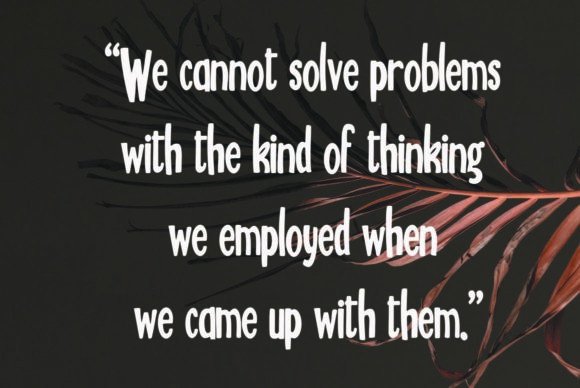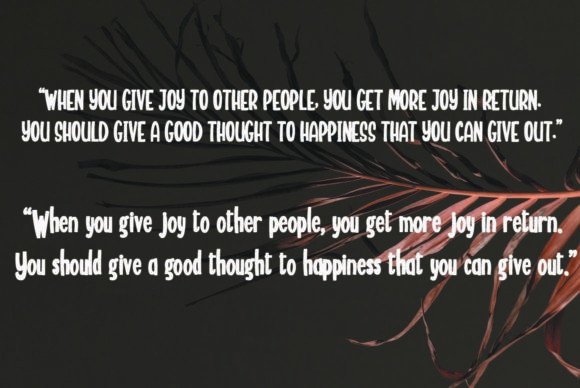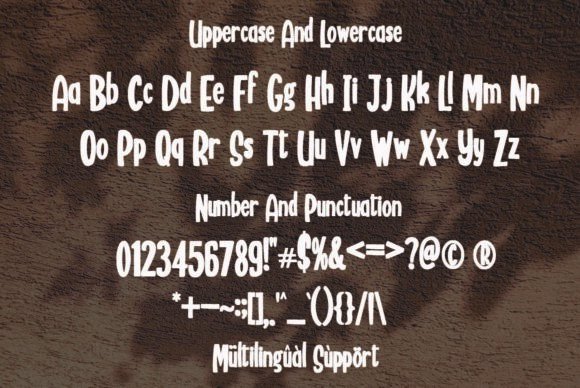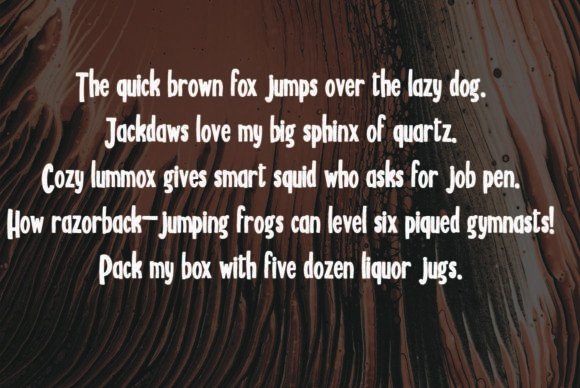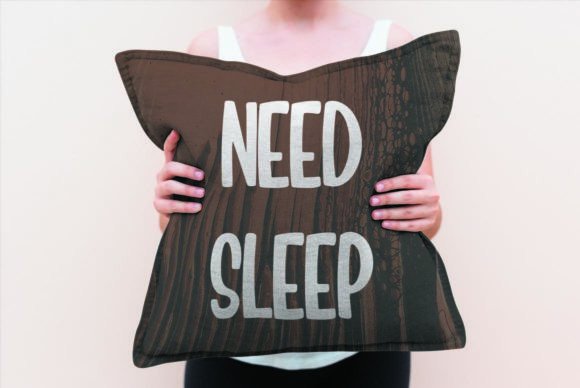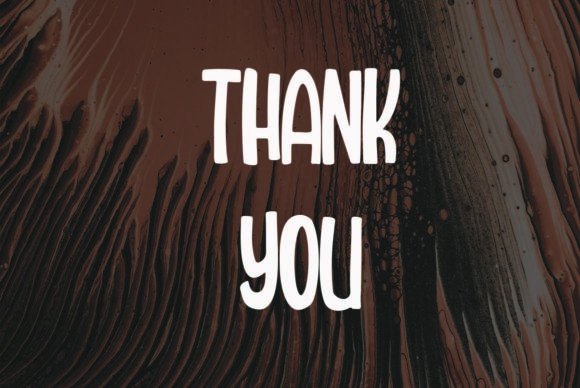
Introduction to Rodrigo Font
As a designer, there’s nothing quite like the thrill of bringing a creative project to life. You’ve spent hours brainstorming ideas, pouring over design resources, and tweaking every detail until it’s just right. And then, it happens – that moment when everything comes together in perfect harmony. For designers, this feeling is what drives us to keep pushing the boundaries of what’s possible.
One of the key elements that can make or break a design is the font. And when it comes to creating a truly unique and elegant look, the Rodrigo Font is a game-changer. With its sophisticated script design, this font is perfect for adding a touch of class to invitations, business cards, and vintage logos. Whether you’re working on a high-end branding project or a simple creative project, the Rodrigo Font is a valuable addition to your design toolkit.
Rodrigo Font
- Available in 5 different font styles, each with its unique characteristics and nuances.
- Designed with precision and care, offering a high level of detail and readability at resolutions up to 300 DPI.
- Perfect for use in various creative projects, including graphics, logos, and typography-based designs.
Honest Review: Rodrigo Font
I recently stumbled upon the Rodrigo Font and I must say, it’s a great addition to any design resource collection. The font’s sleek and modern design makes it perfect for creative projects that require a touch of sophistication.
- ✨ High-quality glyphs that are crisp and clear, even on transparent background images.
- ✨ Great for headings and titles, thanks to its bold and stylish design.
- ⚠️ Limited font sizes, which can make it difficult to use for body text.
- ⚠️ Some users may find the font too bold or overpowering, depending on the design.
Overall, I’m impressed with the Rodrigo Font. It’s a solid choice for designers who want a high-quality font that’s easy to use and customize. With a free download option available, it’s definitely worth checking out for any creative project.
Rodrigo Font is ideal for a variety of creative projects, including logo designs, brochures, and social media graphics. Its high-quality design and transparent background make it a versatile choice for designers and non-designers alike.
Alternatives to Rodrigo Font
Montserrat Font is a popular sans-serif typeface ideal for modern creative projects that require a clean and minimalistic design. It’s perfect for designing logos, brochures, and websites with a high-quality aesthetic. This font is great for headings and titles due to its high x-height, making it easy to read. When to use: For creative projects that need a modern and sleek design, Montserrat Font is a great alternative to Rodrigo Font. It’s available for free download and is highly customizable.
Comparison to Rodrigo Font: Montserrat Font has a more geometric and modern feel compared to Rodrigo Font, which has a more vintage and elegant touch. While Rodrigo Font has a more ornate design, Montserrat Font is ideal for modern design resources.
Open Sans Font is a clean and highly legible sans-serif typeface suitable for various design projects, including logos, business cards, and websites with a transparent background. It’s available for free download and is highly customizable. When to use: For creative projects that require a clean and professional design, Open Sans Font is a great alternative to Rodrigo Font. It’s perfect for headings and body text due to its high legibility.